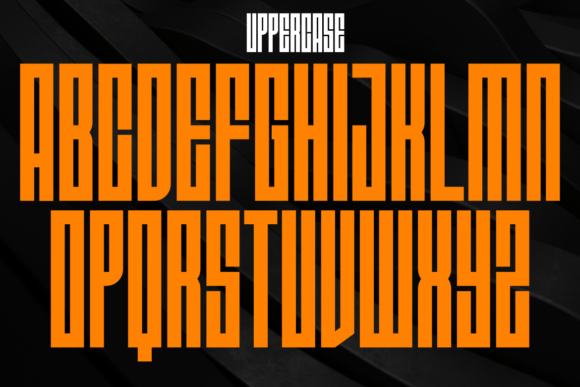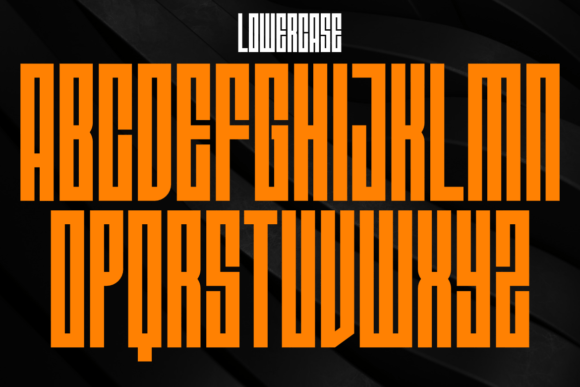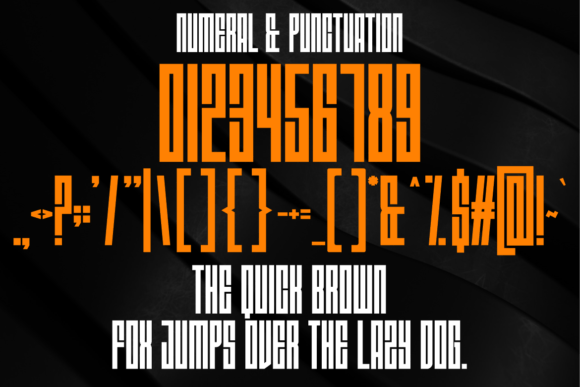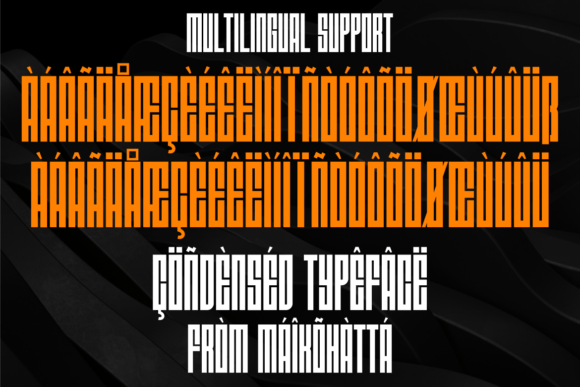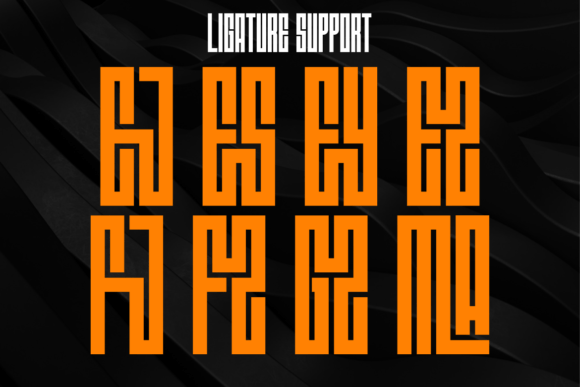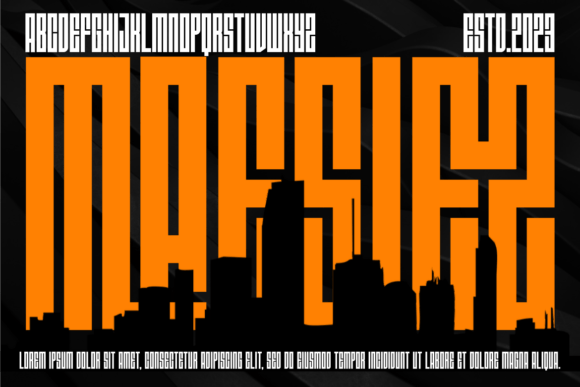
Introduction to Maesiez Font
As a designer, you’ve probably had those moments when you’re working on a creative project and you can’t seem to find the perfect font to match your vision. The words, the emotions, the message – it all comes together, but something’s missing. That’s where Maesiez Font comes in – a modern, bold, and authentic display font that’s about to take your designs to the next level.
With Maesiez Font, you’ll have the freedom to create stunning visual identities, logos, and templates that stand out in a crowded market. Its versatility makes it an ideal design resource for any project, from esports to branding. Plus, with PUA encoding, you can easily access all the amazing glyphs and ligatures that will add that extra touch to your work.
Key Features of Maesiez Font
- Includes a range of characters, including uppercase and lowercase letters, numbers, and special characters, making it a versatile design resource.
- Perfect for use in logos, branding materials, and other design elements where a sophisticated and elegant look is desired.
Honest Review: Maesiez Font
I recently stumbled upon the Maesiez Font while searching for a suitable design resource for a creative project. I was immediately drawn to its clean and modern aesthetic, which makes it perfect for a variety of applications, from digital design to print materials.
What works well with the Maesiez Font is its versatility. It’s available in multiple weights and styles, making it easy to use in different contexts. I also appreciate that it has a transparent background, which allows for seamless integration with any background image or color.
- High-quality design that’s suitable for professional projects
- Available in multiple weights and styles
The Maesiez Font is a high-quality, free download design resource ideal for various creative projects. Its unique characteristics make it an excellent addition to any design.